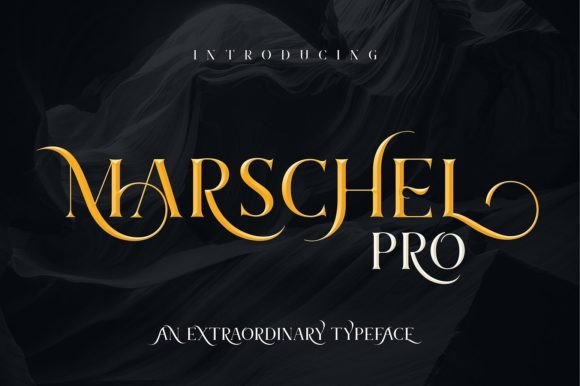
Step into the world of elegance and grace with Marschel Pro Font, a display font crafted with love by the talented foundry, Zeune Type. Experience the beauty of this font as it transforms your words into breathtaking creations that captivate hearts and minds. Marschel Pro is not just a font; it's an artistic journey that will leave you mesmerized.
With its delicate curves and sweeping strokes, Marschel Pro Font exudes timeless elegance. Each character is meticulously designed to evoke a sense of sophistication and charm, making it the perfect choice for wedding invitations, greeting cards, and other special occasions where a touch of beauty is desired. Indulge in the magical aura this font creates as it adds a touch of enchantment to your designs.
Marschel Pro Font is not only aesthetically pleasing but also incredibly versatile. Its carefully crafted glyphs harmoniously blend with a wide range of design styles, from classic and vintage to modern and contemporary. It effortlessly complements both bold and subtle color palettes, making it an indispensable tool for designers seeking to make a statement.
Unleash your creativity and explore the boundless possibilities Marschel Pro Font offers. Whether you're designing logos, posters, flyers, or social media graphics, this font will elevate your projects to new heights of visual appeal. Experience the joy of creating designs that speak to the soul and leave a lasting impression.